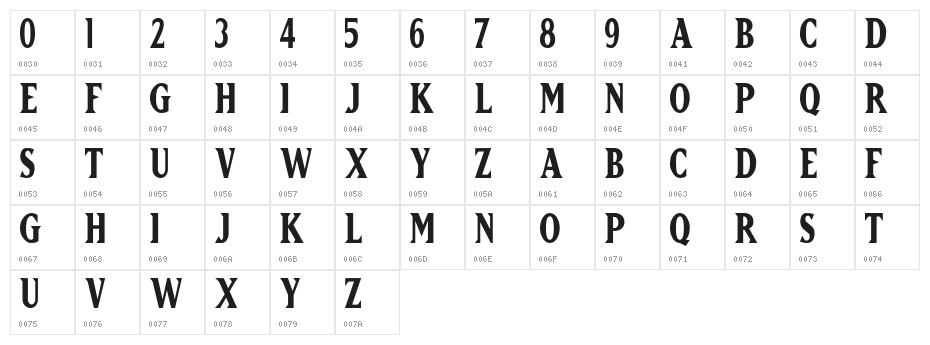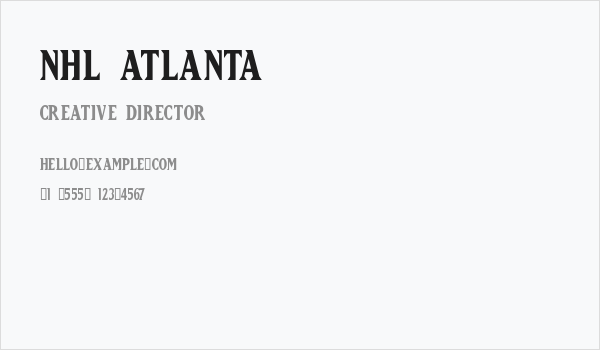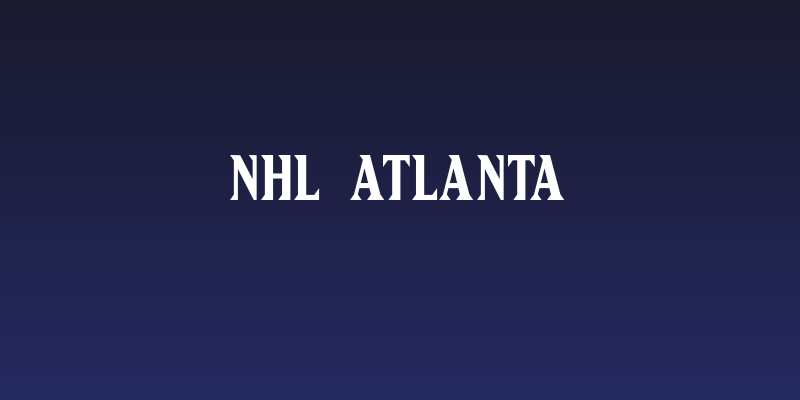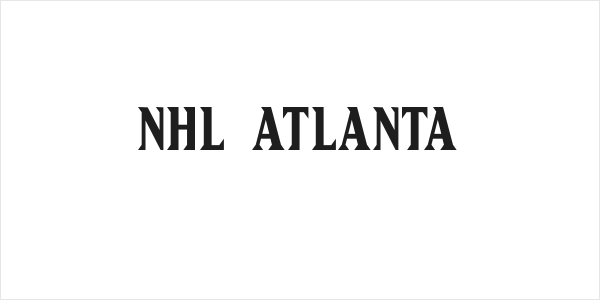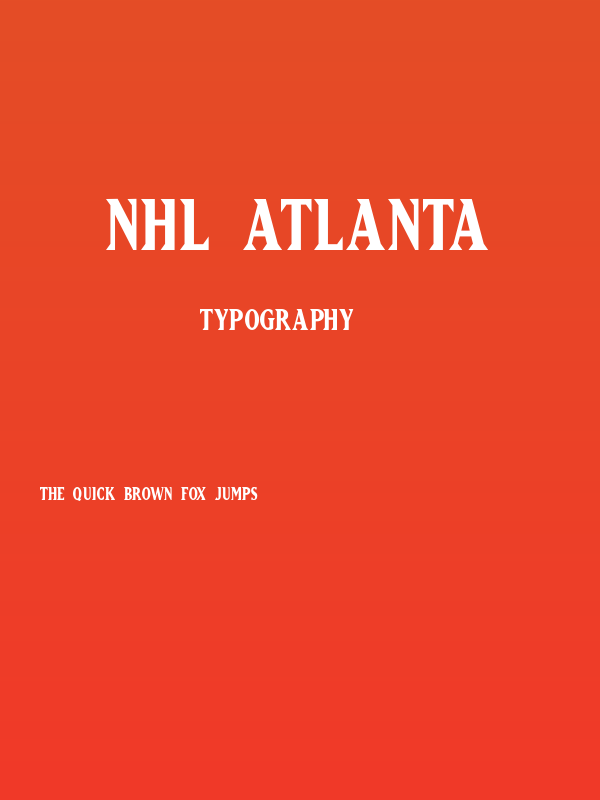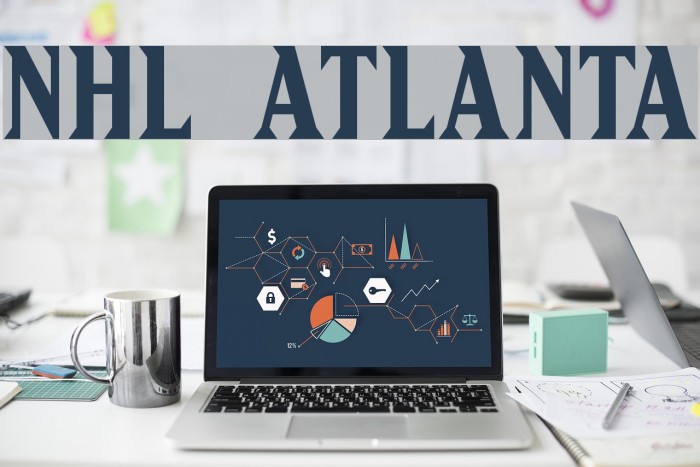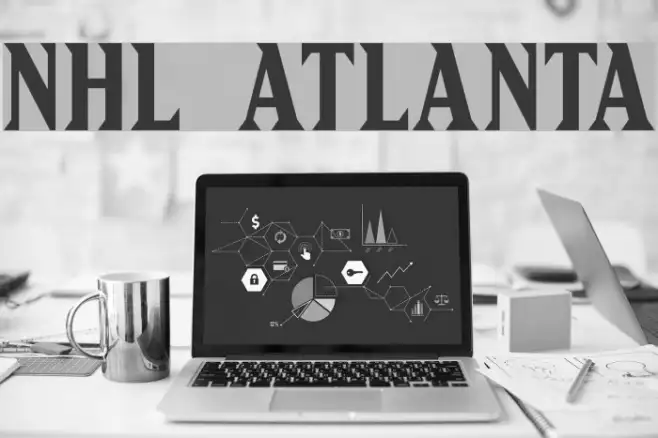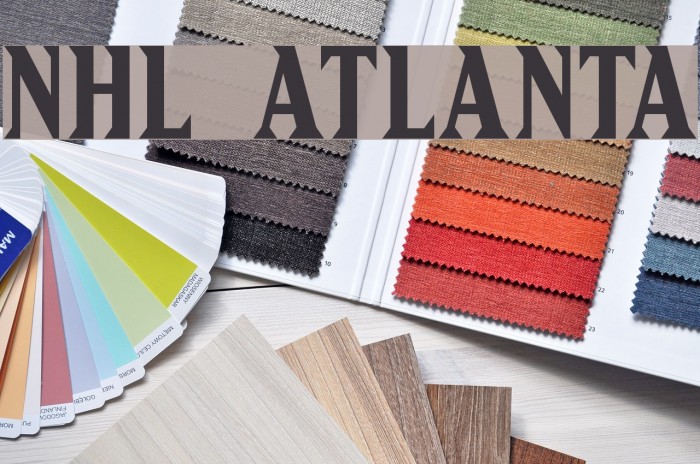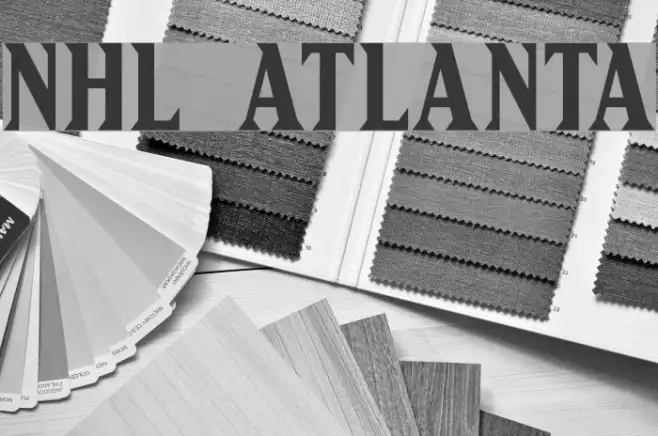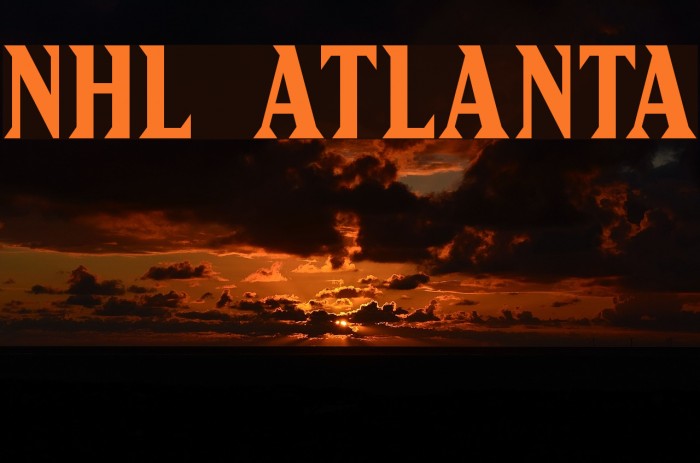
NHL Atlanta Font
NHL Atlanta Description
This font features bold, sharply defined serifs and a strong, authoritative presence. The uppercase letters are robust and slightly condensed, giving a sense of stability and tradition. The lowercase letters maintain a consistent style, with a slight flair on certain characters that adds a touch of elegance. The numerals are clear and legible, with a uniform thickness that complements the overall design. The special characters are distinct and well-integrated, ensuring they stand out without disrupting the flow of text. This font is ideal for projects that require a classic yet impactful look.
| Width | Condensed |
| Overall Style | Classic |
| Use Case | Headlines, Logos, Editorial Design |
| Proposed Projects | Ideal for branding, editorial design, headlines, and signage where a traditional yet impactful look is desired. |